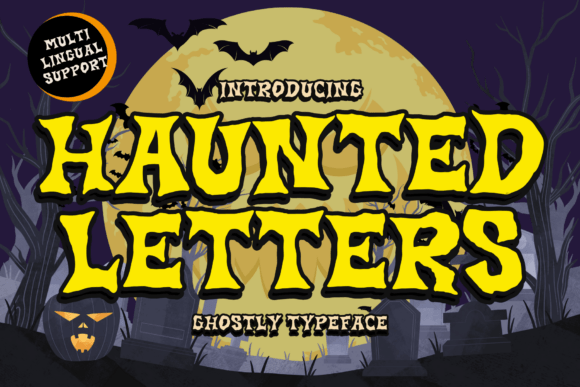
The Perfect Font for a Spooky Season
As a designer, there’s nothing quite like the thrill of brainstorming a new project, especially around Halloween. The crisp autumn air, the flickering jack-o-lanterns, and the eerie sounds of the season all combine to create the perfect atmosphere for creativity to flow. And what’s more fitting than a font that captures the essence of this spooky season?
Enter the Haunted Letters Font, a playful and authentic decorative font that’s sure to add a touch of whimsy to any project. Whether you’re designing blog posts, logos, or invitations, this font is the perfect choice. Its unique blend of spooky charm and elegance makes it a valuable asset for any designer looking to add some seasonal flair to their work.
Haunted Letters Font Key Features
- Unique Characteristics: Distressed, vintage-inspired design with a haunted, eerie feel; perfect for horror, thriller, and suspense-themed projects
- Font Style: Display font, ideal for headings, titles, and emphasis; also suitable for body text in smaller sizes
Haunted Letters Font Review
I recently had the chance to work with the Haunted Letters Font and I must say, it’s a unique and intriguing choice. Here are some of its strengths and weaknesses.
- Unconventional design: The font’s distressed, handwritten feel adds a touch of whimsy and personality to any design.
- Expressive flair: The varied letterforms and flourishes give the font a sense of movement and energy.
- Perfect for creative projects: The font’s quirky charm makes it ideal for titles, headings, and other design elements in creative projects.
- Limited legibility: The font’s unique design can sometimes make it difficult to read, especially in smaller sizes or when used for large blocks of text.
- Lack of consistency: The font’s distressed look can be inconsistent, with some letterforms looking more worn than others.
Overall, I think the Haunted Letters Font is a great choice for designers looking to add some personality to their projects. While it may not be suitable for every design, it’s definitely a unique and eye-catching option.
The Haunted Letters font is perfect for creating spooky and mysterious designs, such as:
- Haunted house invitations
- Spooky-themed party decorations
- Horror movie posters
- Creepy typography for social media graphics
Remember to experiment with different font sizes, colors, and settings to get the most out of the Haunted Letters font.
Carolyna Pro is a modern calligraphy font that offers a more elegant and sophisticated look compared to Haunted Letters Font. It is ideal for designers who want to create a high-end, luxurious feel for their projects. While it still has a handwritten touch, Carolyna Pro is more refined and suitable for formal invitations, wedding designs, and other high-end branding materials.
What is the recommended font size for the Haunted Letters Font?
The recommended font size for the Haunted Letters Font varies depending on the application and intended use. However, as a general guideline, we recommend using font sizes between 12pt and 24pt for body text and 36pt to 48pt for headings. This will ensure the font is legible and visually appealing.